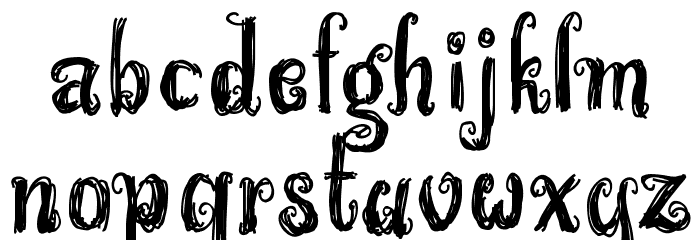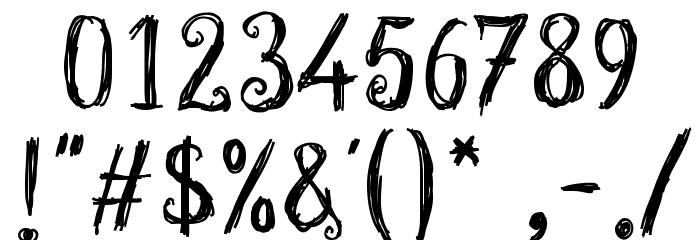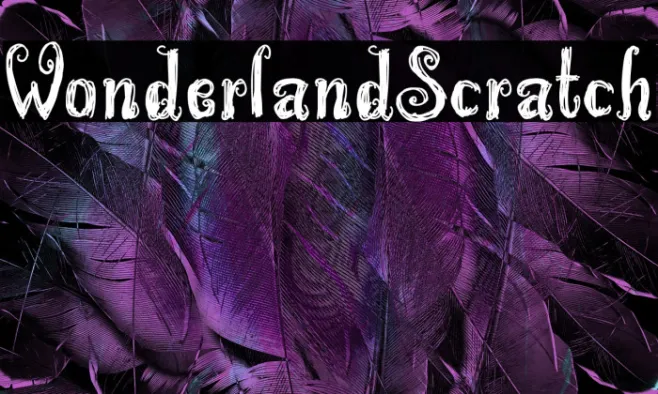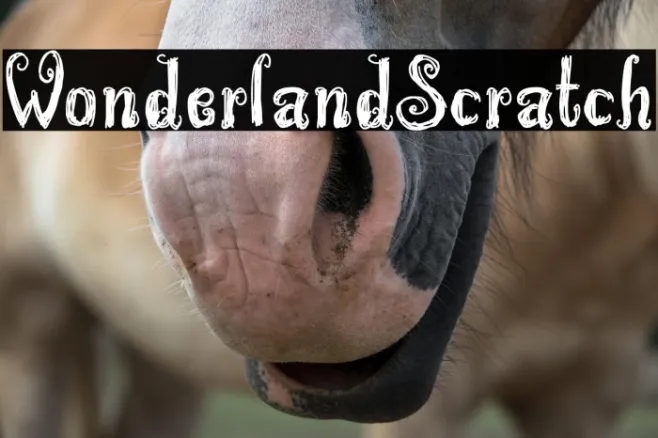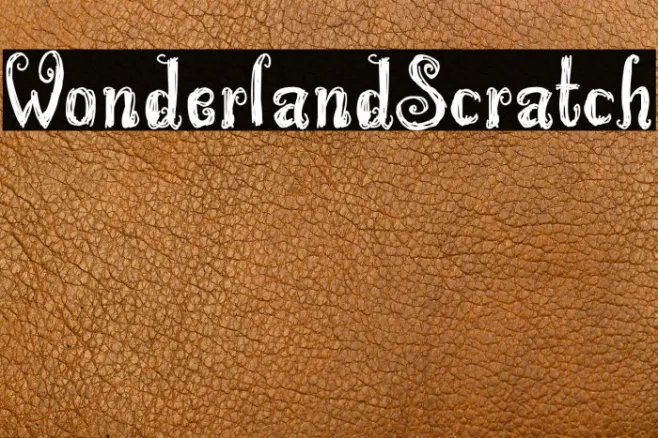
WonderlandScratch Font
This font features a whimsical and decorative style, characterized by its playful and intricate design. Each letter is adorned with swirling, vine-like embellishments that give it a unique, hand-drawn appearance. The strokes are uneven, adding to the font's charm and artistic flair. The uppercase and lowercase letters maintain a consistent style, while the numbers and special characters are equally ornate. This font is perfect for creating eye-catching designs that require a touch of fantasy and creativity.
A whimsical, decorative font with vine-like embellishments and a hand-drawn appearance.
- Proposed Projects: Ideal for fantasy-themed projects, children's book covers, greeting cards, and creative branding.